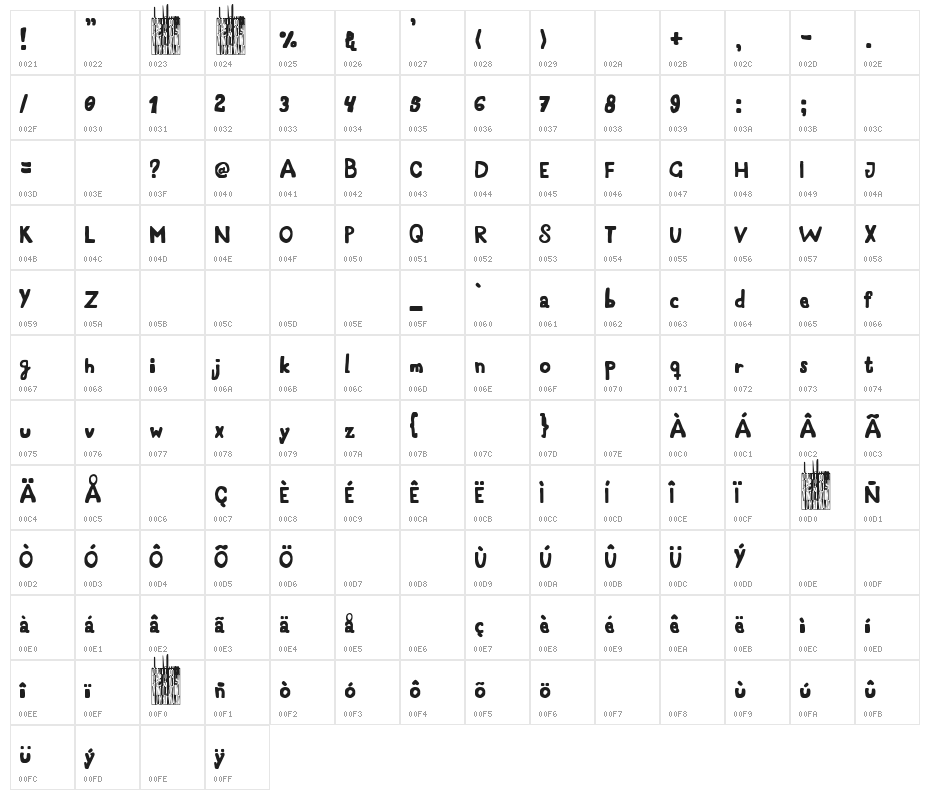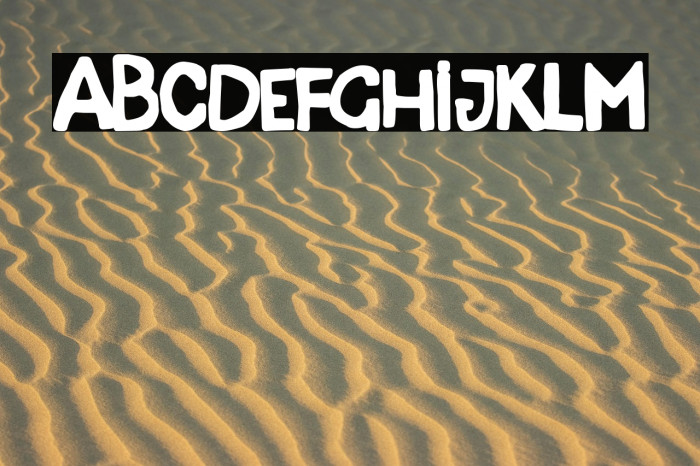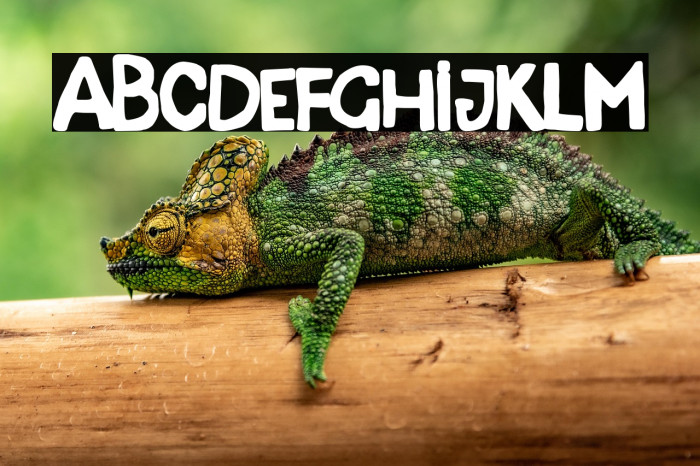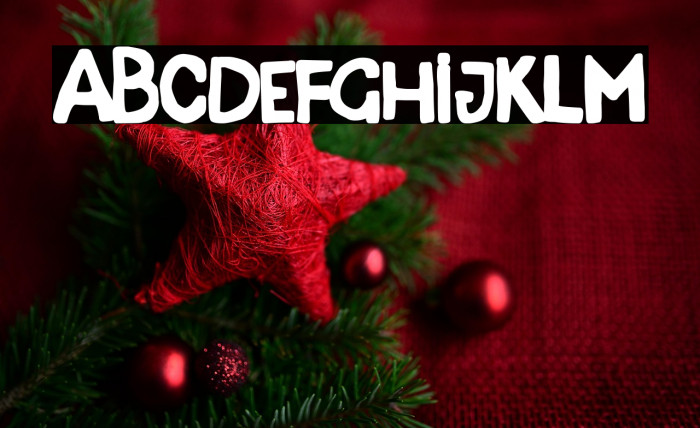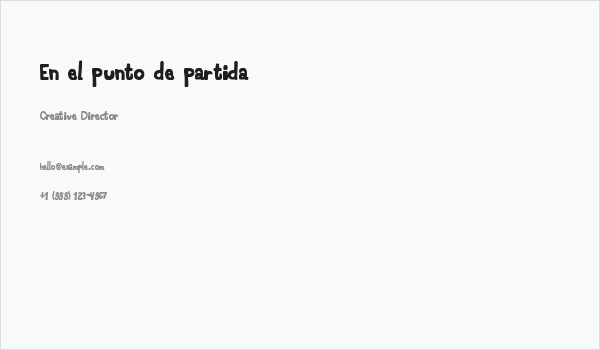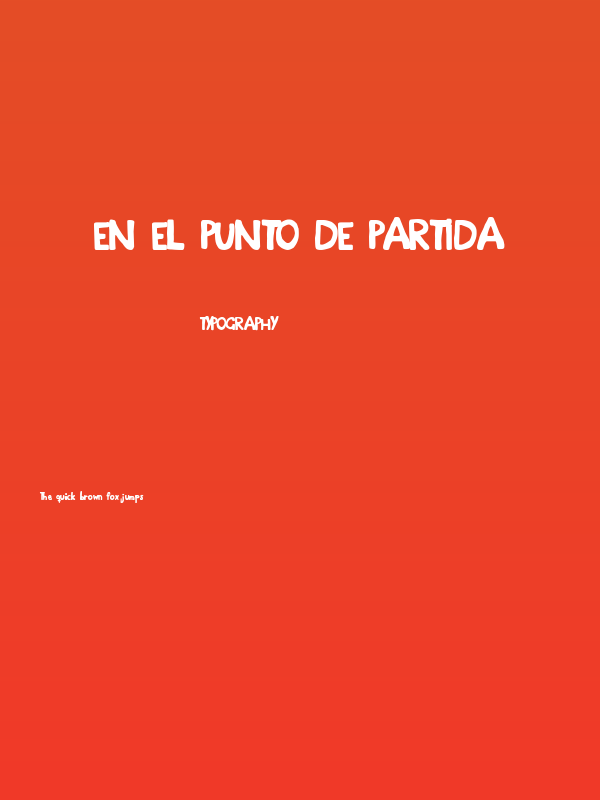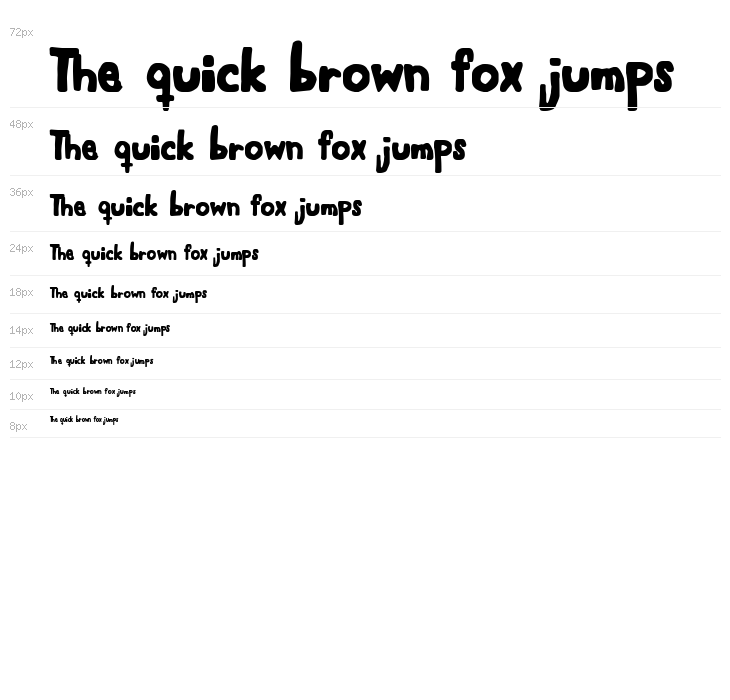
En el punto de partida Font
En el punto de partida Description
A playful, hand-drawn sans-serif font with rounded edges and irregular, organic letterforms. The characters have a casual, informal appearance with varying stroke thickness and a slightly uneven baseline, giving it a whimsical and friendly feel.
| Overall Style | Decorative, Playful, Informal |
| Use Case | Headlines, Posters, Logos, Children's materials |
| Proposed Projects | Children's books, posters, greeting cards, informal branding, creative projects. |